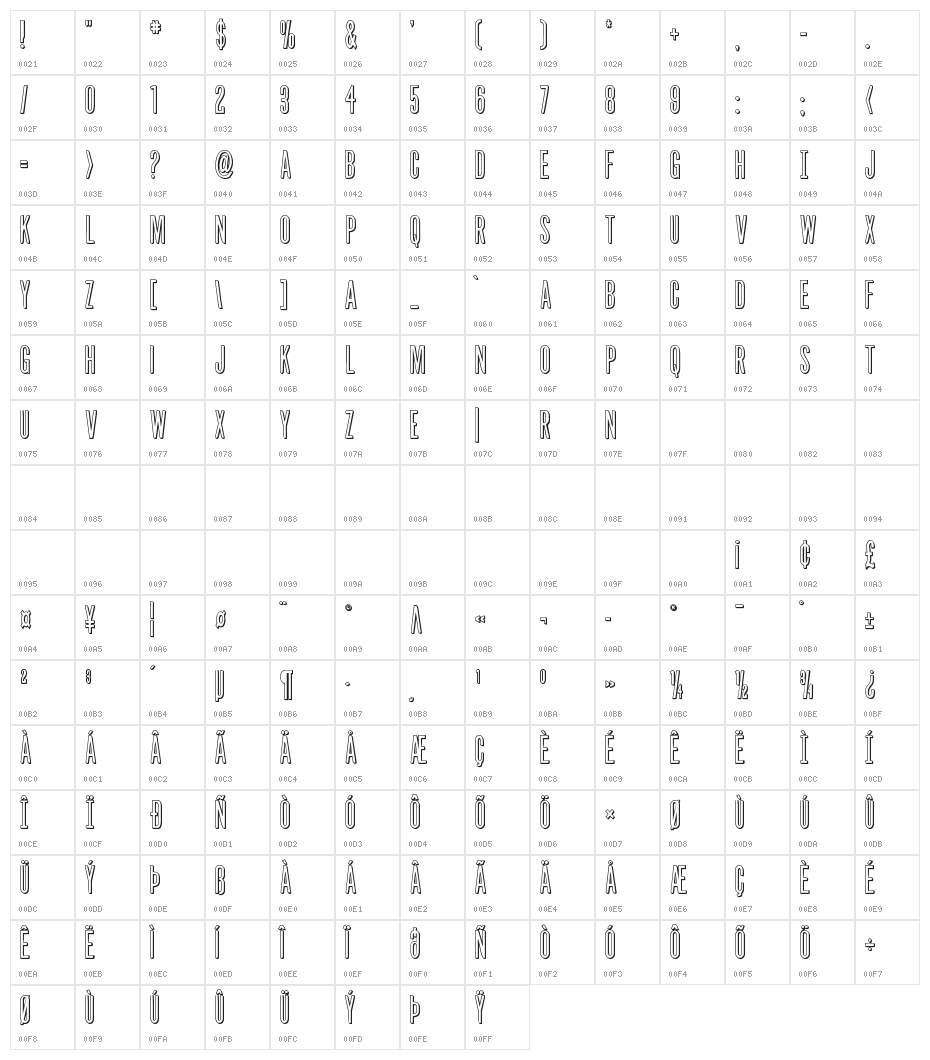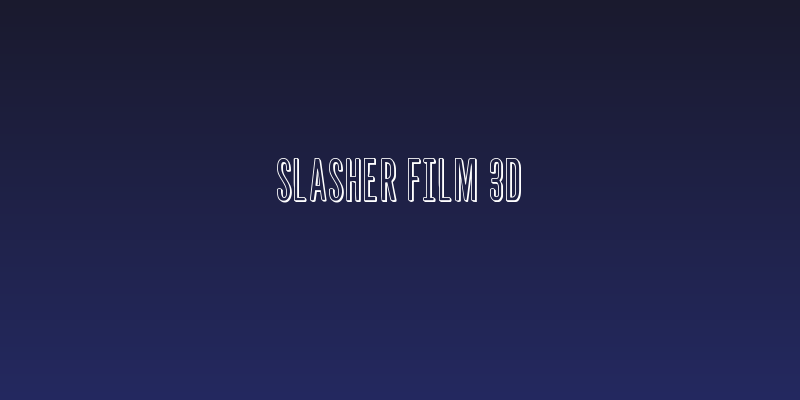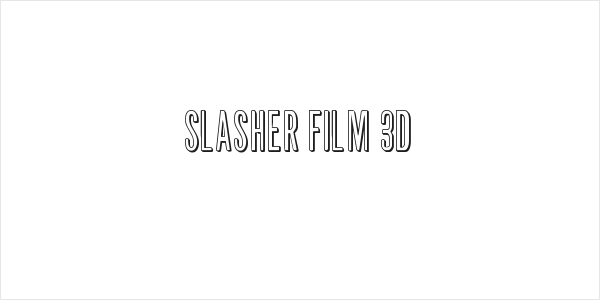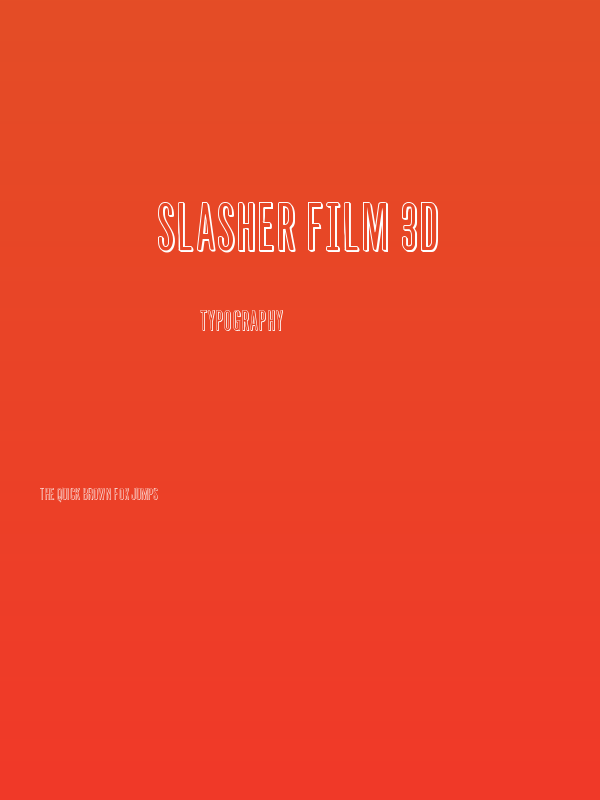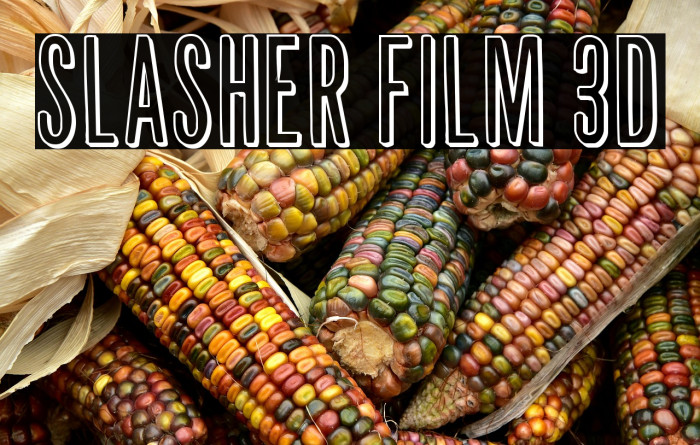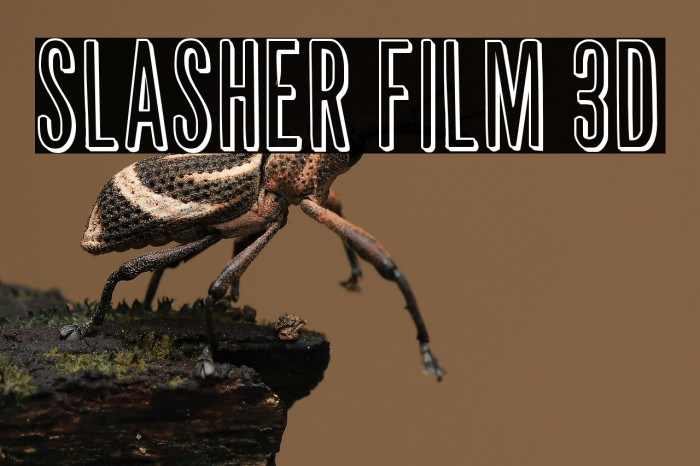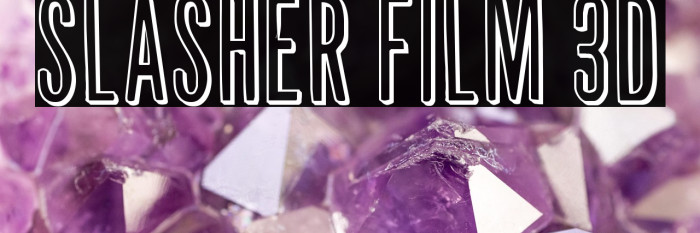
Slasher Film 3D Font
Slasher Film 3D Description
This font features a bold, three-dimensional outline style that gives it a striking and impactful appearance. The uppercase and lowercase letters are designed with a consistent width, creating a uniform look across all characters. The numbers and special characters maintain the same bold outline, ensuring a cohesive design throughout. The font's style is reminiscent of vintage horror movie posters, with a modern twist that makes it suitable for contemporary designs. The clean lines and clear distinction between the outline and the inner space of each character make it highly legible, even at smaller sizes.
| Proposed Projects | Ideal for movie posters, Halloween-themed designs, video game titles, and any project requiring a dramatic and eye-catching font. |